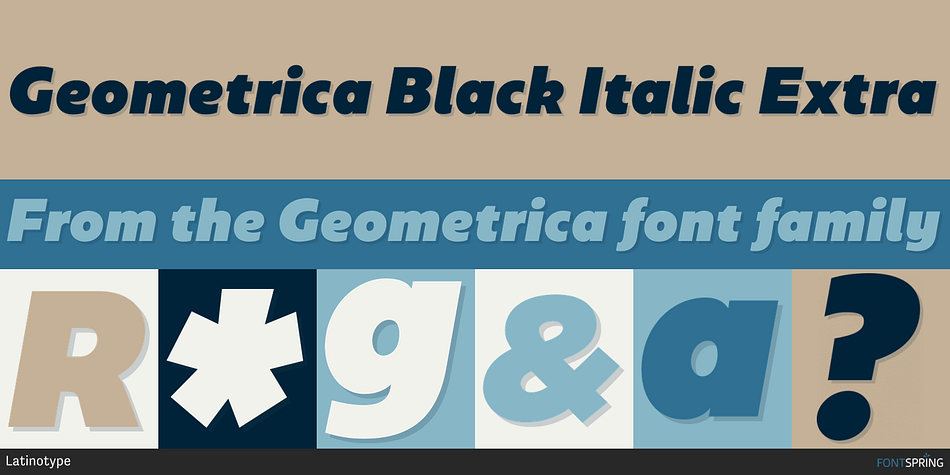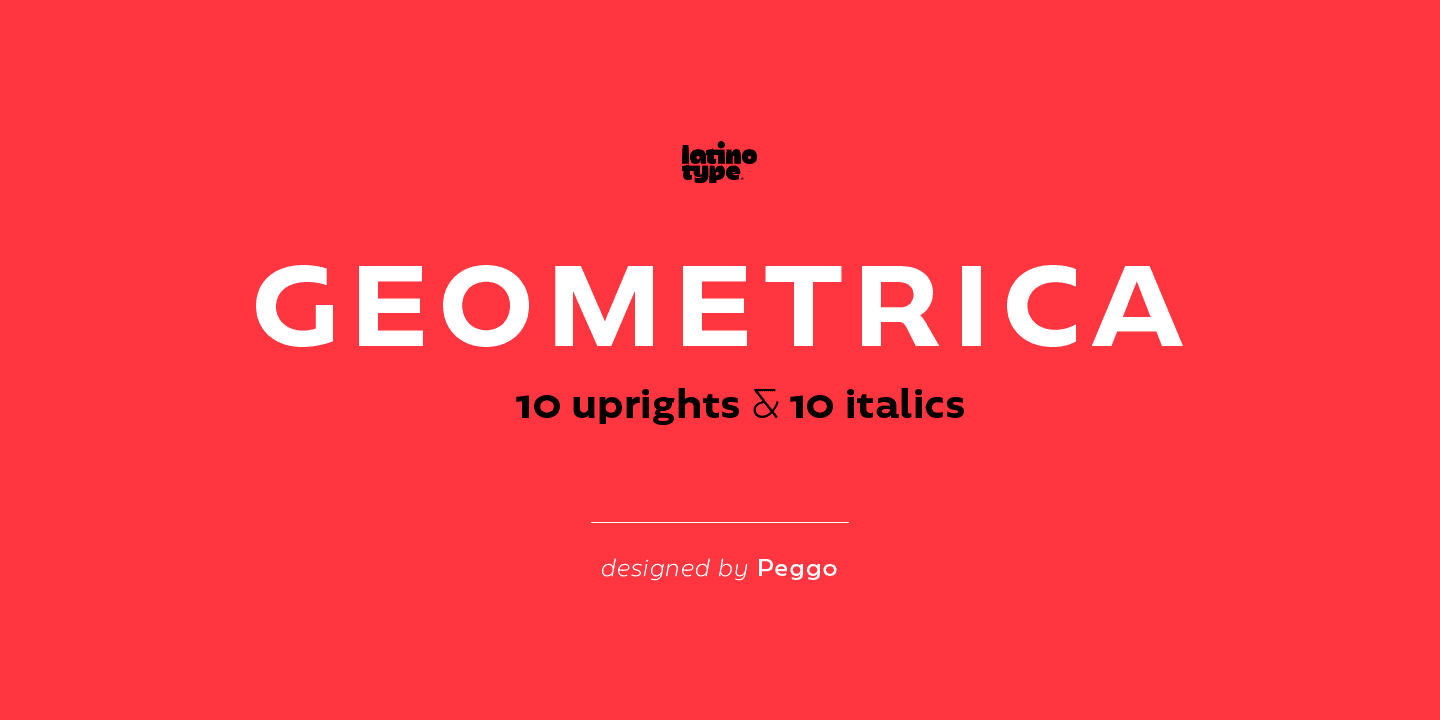
Geometrica Extra Black Italic
Designed by PeGGO Fonts, Geometrica is a sans serif font family. This typeface has twenty styles and was published by Latinotype.
Geometrica is a low contrast rounded geometric Sans with a mid 19th/early 20th century simplicity air yet modern and minimalist.
Geometrica is a low contrast rounded geometric Sans with a mid 19th/early 20th century simplicity air yet modern and minimalist. The font was inspired by the idea of creating a typeface with uppercase/lowercase characters and small caps having the same proportion. The result is a font with a moderate width, generous x-height, and short ascenders and descenders, giving it a compact and clean look.
Geometrica comes in 10 weights plus italics-each variant with 560 glyphs-and contains a number of OpenType features that allow you to create very ‘good looking’ designs.
Geometrica provides a wide range of choices for any design project and it is especially recommended for UI/UX and app design, branding and corporate design.